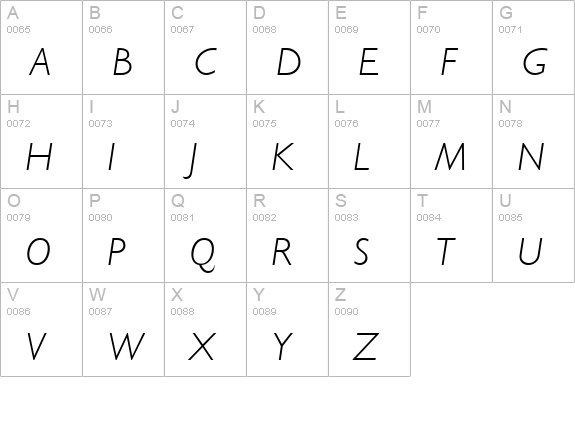
Garrison Light Sans ITALIC is a refined, elegant, italic variant in the Garrison typeface family \xE2\x80\x94 well suited to elegant body text, refined sub-headings, and luxury branding.
Garrison Light Sans ITALIC font exemplifies elegance and sophistication with its sleek and modern design. The italic style adds a touch of flair and creativity to any project, making it perfect for a variety of design applications. Its clean lines and smooth curves create a sense of effortless sophistication, making it a versatile choice for both digital and print projects. Best of all, the Garrison Light Sans ITALIC font is available for free download at FontsMarket.com. This means you can easily access this high-quality font without any cost, making it a valuable addition to your font library. Whether you're designing a website, creating a logo, or working on a print project, this font will elevate your designs and help you stand out from the crowd. Don't miss out on the opportunity to enhance your designs with the Garrison Light Sans ITALIC font - download it for free today at FontsMarket.com and take your projects to the next level.